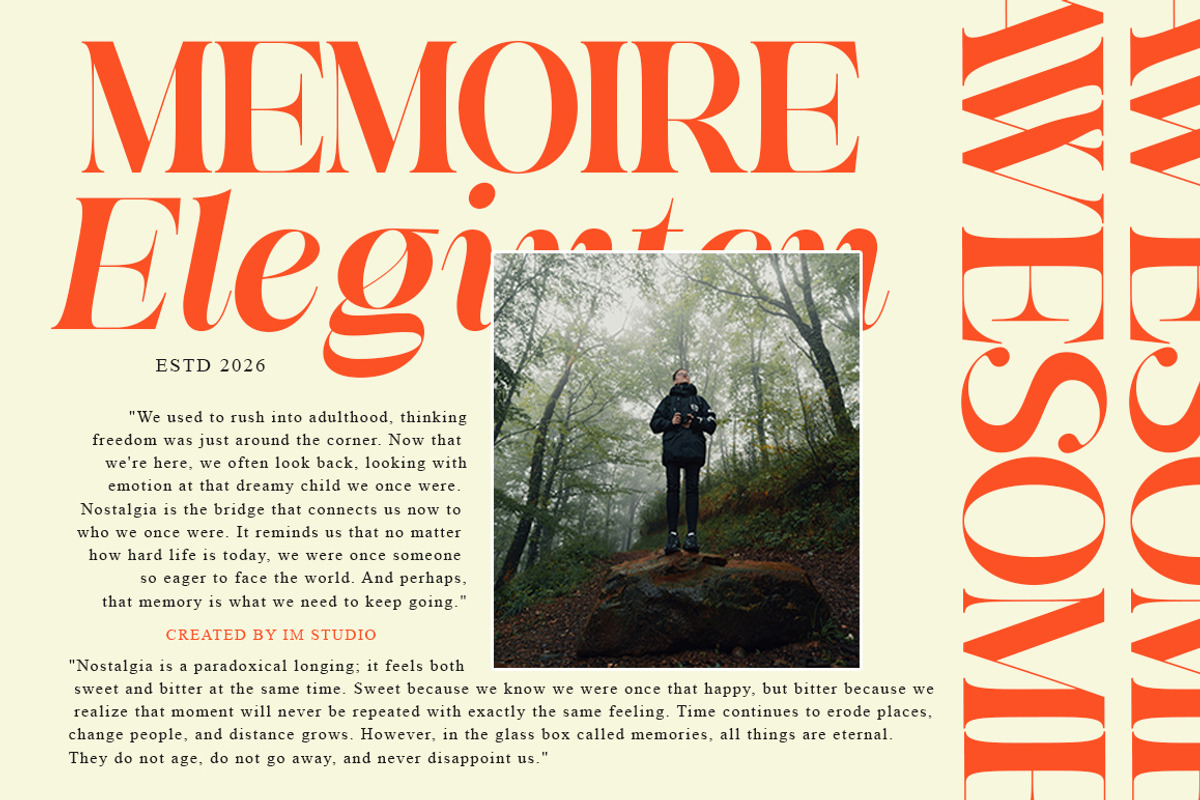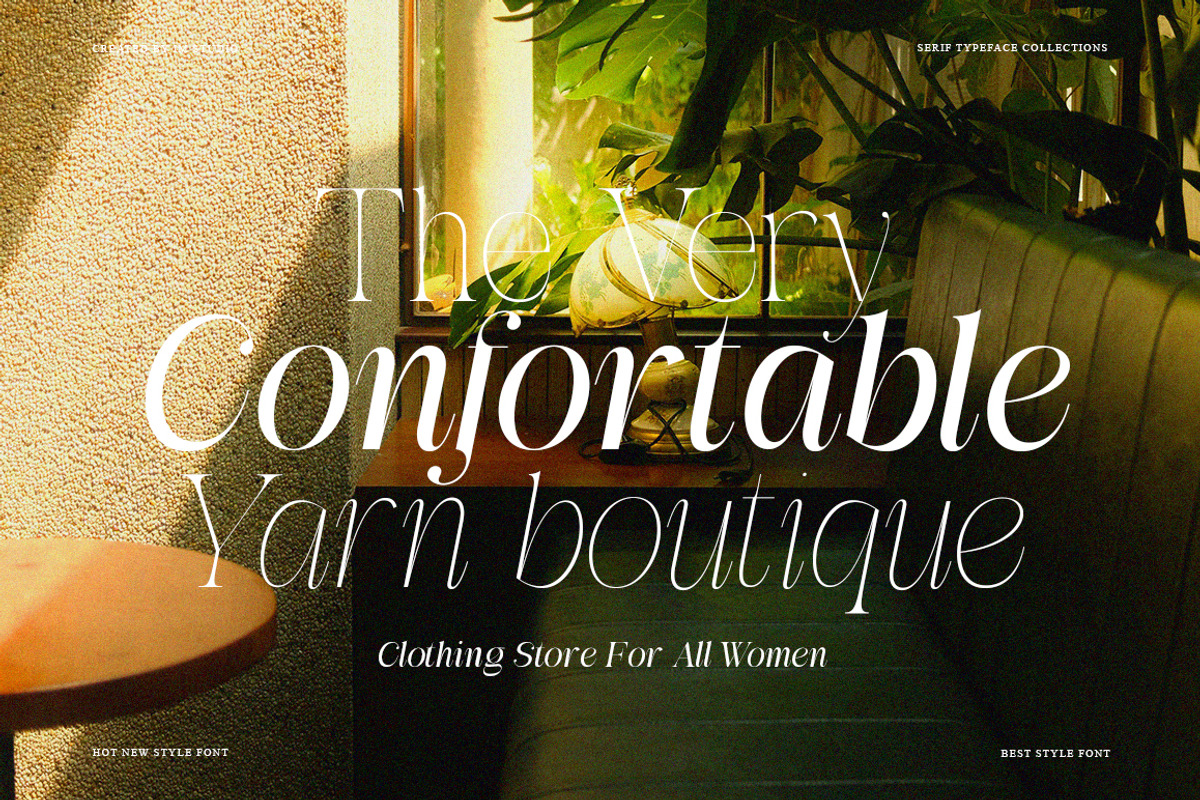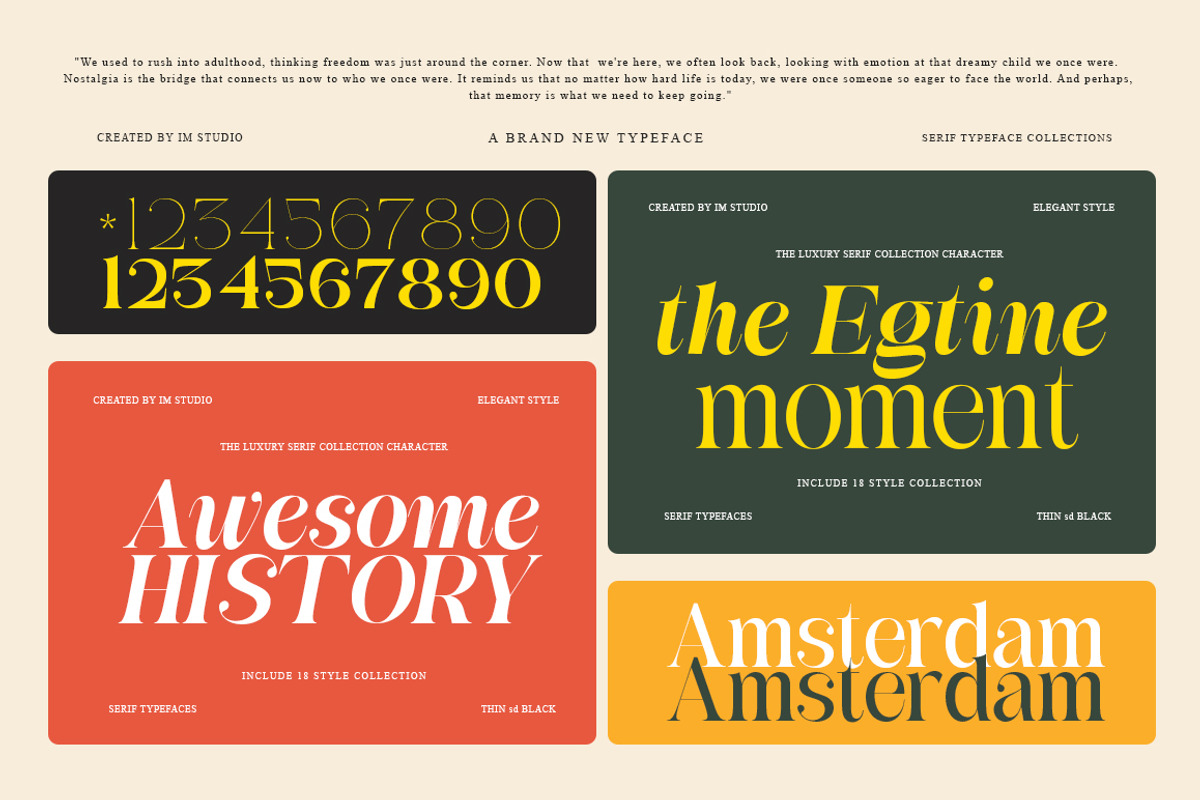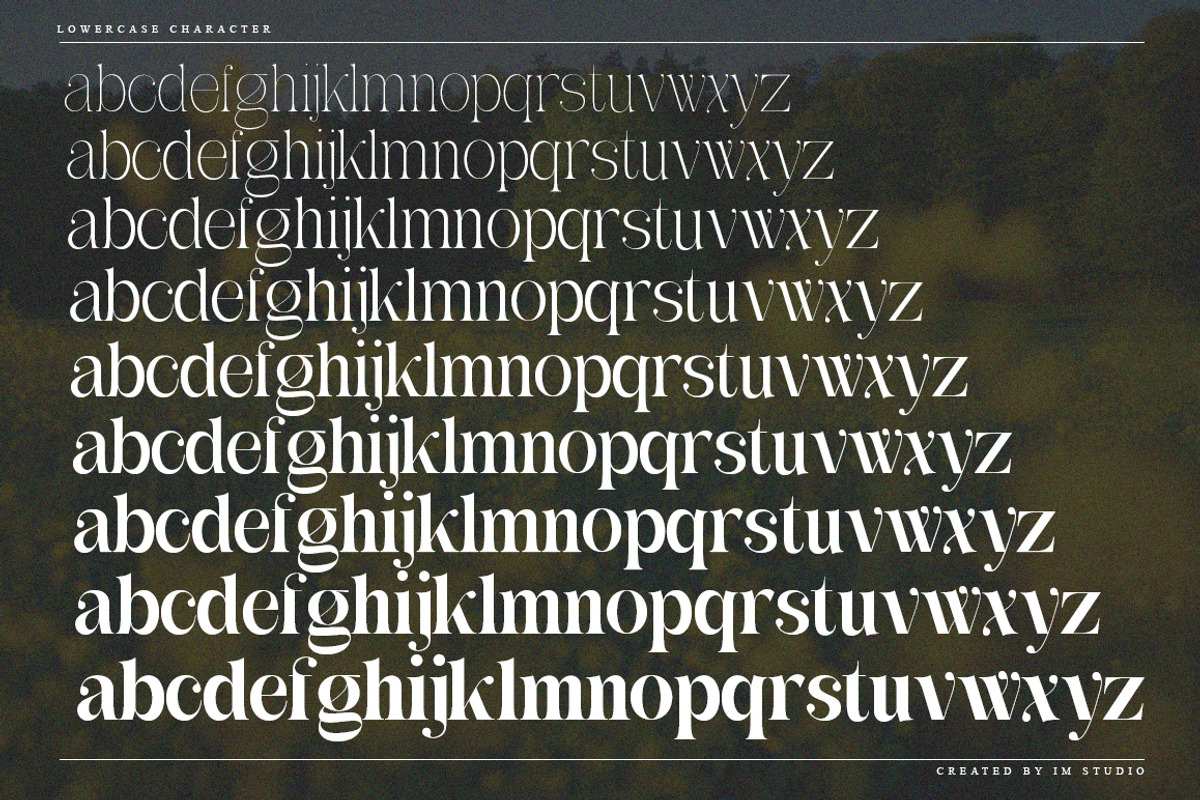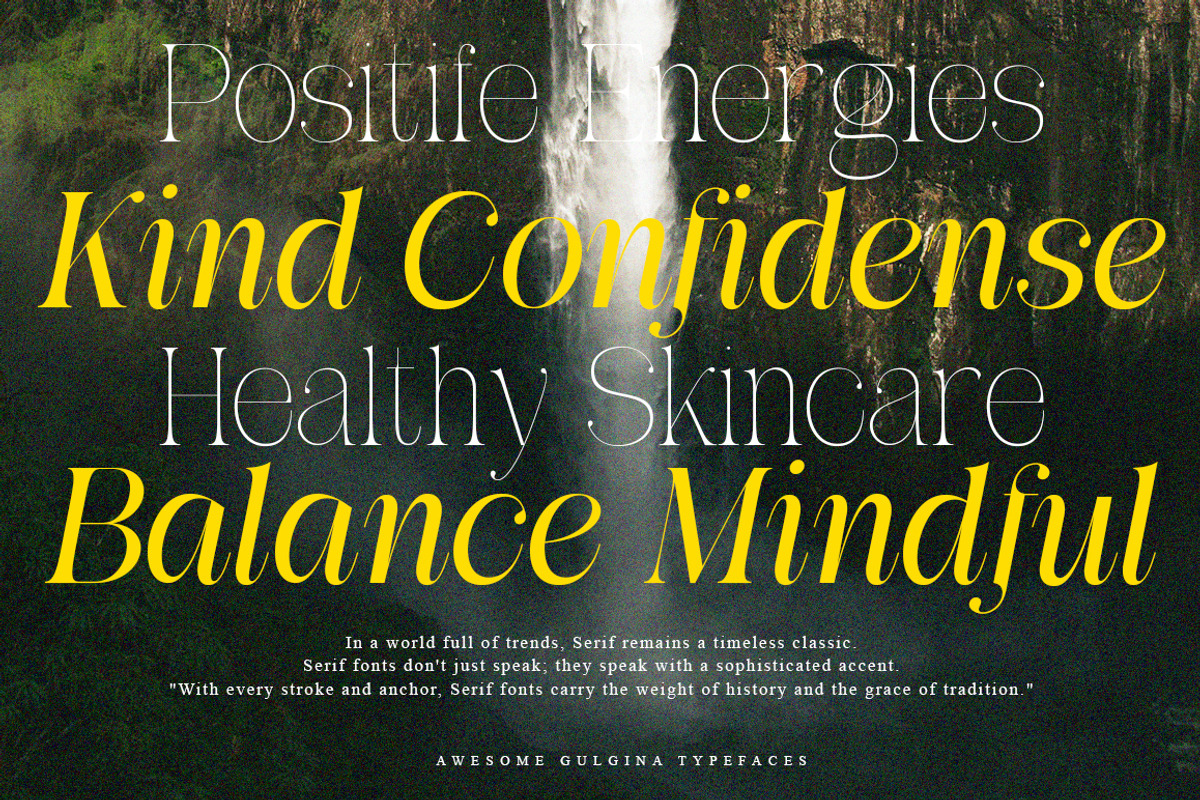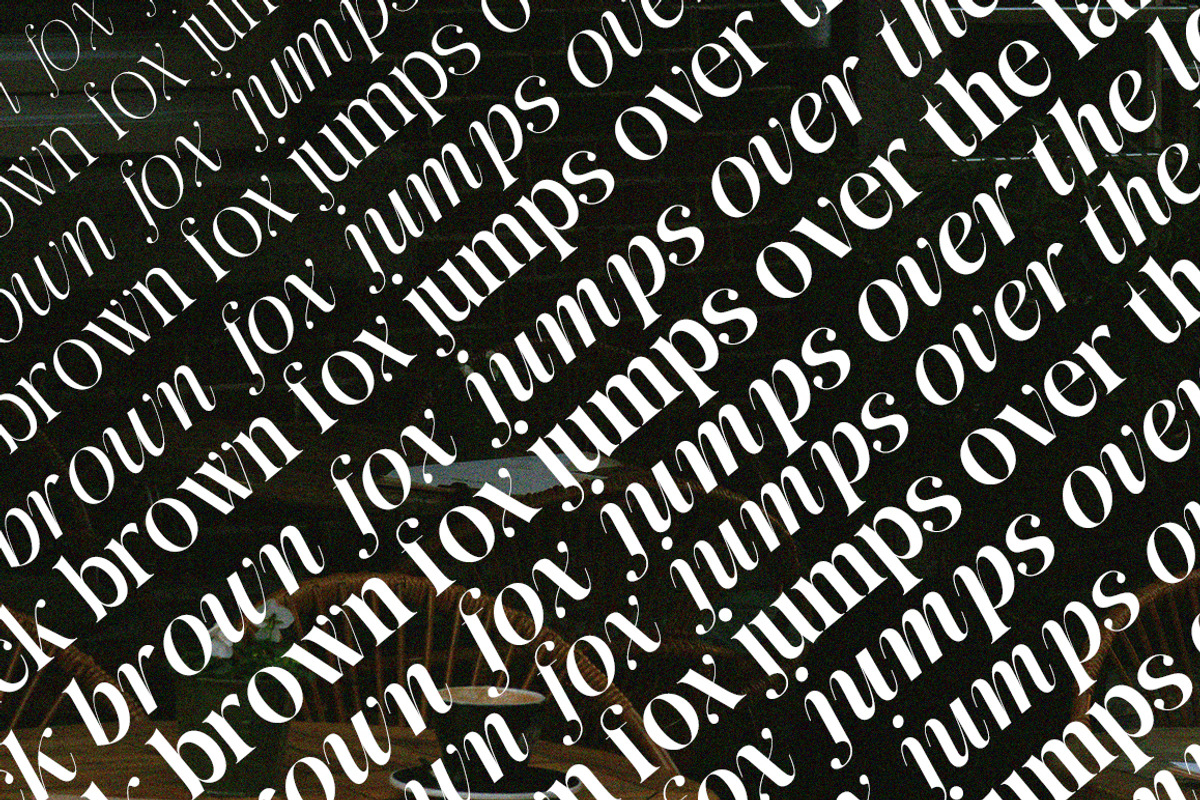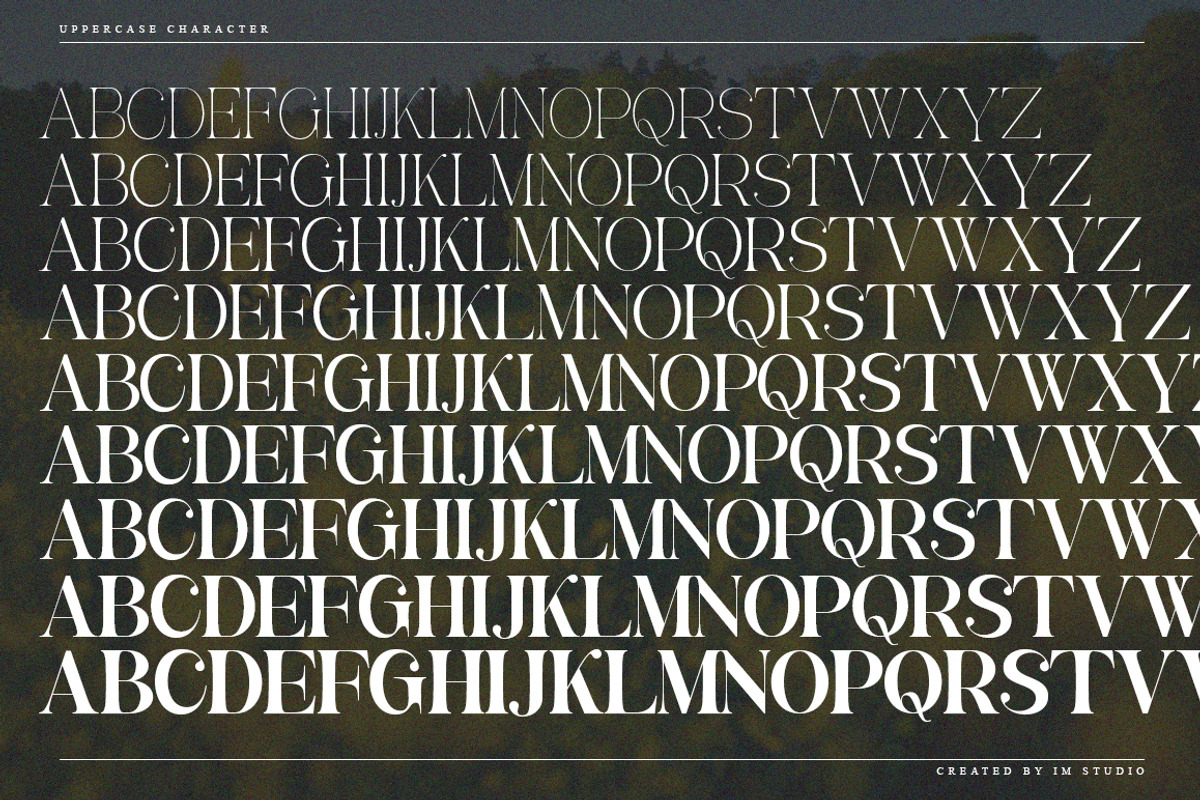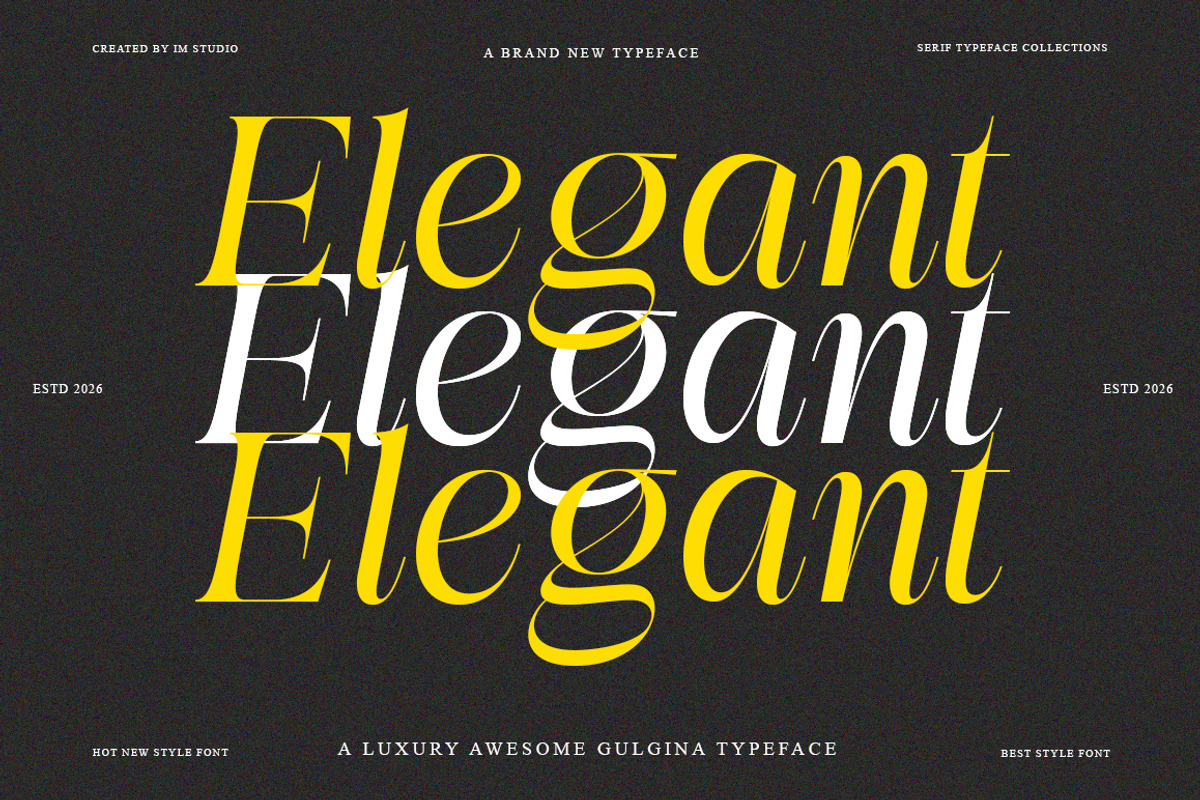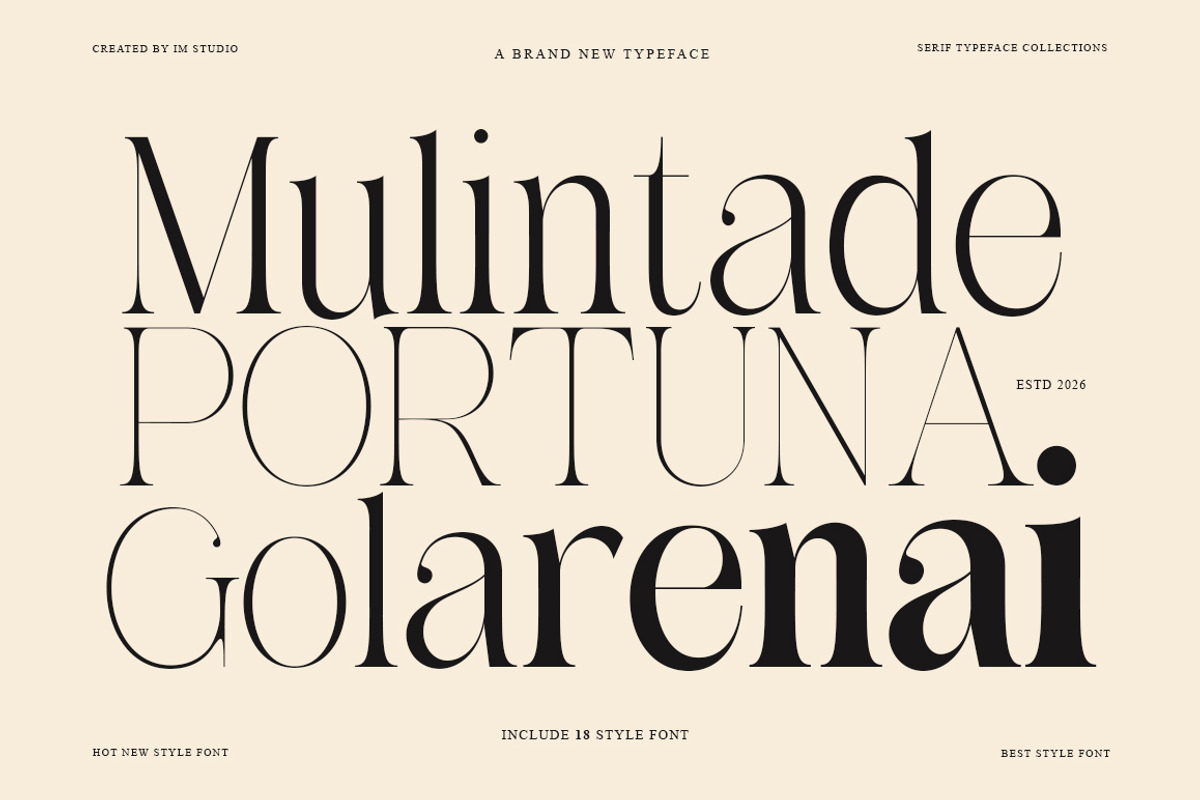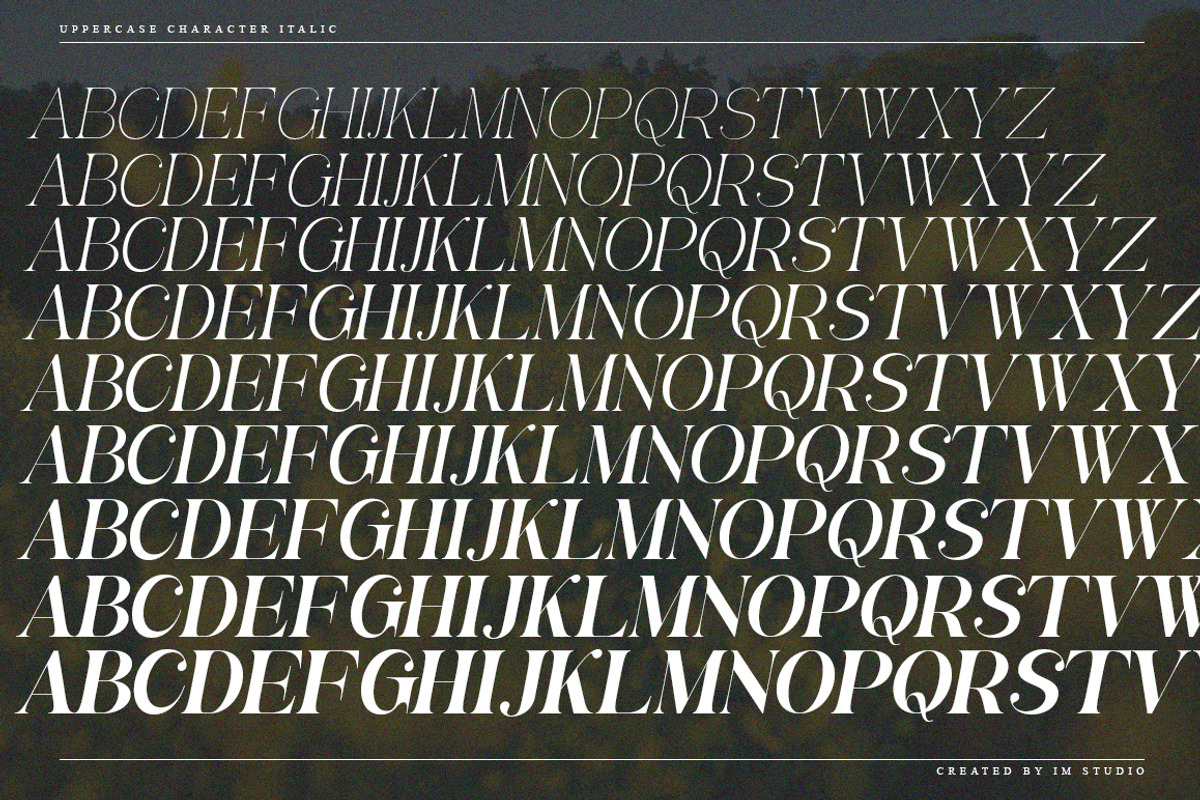
Awesome Gulgina | 18 Style Font
Introducing Awesome Gulgina: A Serif & Italic Typeface for the Modern Creative
Where precision meets elegance. Awesome Gulgina is a meticulously crafted typeface family that bridges the gap between modern clarity and timeless sophistication. Every letterform is engineered with deliberate balance—clean structure, subtle contrast, and refined curves that command attention without demanding it. Whether you're setting a headline or composing a full editorial spread, Awesome Gulgina adapts effortlessly, bringing a quiet confidence to every design it touches.
✦ The Typeface, Defined
Step into a world where typography becomes an experience. Awesome Gulgina's harmonious proportions and contemporary sensibility make it equally at home in bold brand identities and delicate, refined compositions.
Its purpose-built italic style—a true slant design, not a mechanical lean—introduces a natural sense of movement and rhythm, giving your work a dynamic yet polished character. Multiple weights, one unified vision.
✦ Key Features
- Modern Clarity
A clean, structured architecture ensures effortless readability at any size, from fine print to large-format displays—without sacrificing elegance.
- Elegant Ligatures
A curated selection of sophisticated ligatures elevates your typography, adding expressiveness and visual refinement to every word.
- Advanced OpenType Features
Full OpenType support gives designers precise typographic control—fine-tune spacing, alternate glyphs, stylistic sets, and more.
- Extensive Language Support
With support for over 90 languages, Awesome Gulgina is built for the world stage—ideal for brands and creatives with a global voice.
- True Slant Italic Design
Unlike a simple oblique, the italic style is purpose-built from the ground up—flowing naturally alongside the upright styles for a seamless, organic feel.
✦ Made For
Use CaseWhy It WorksEditorial & PublishingExceptional readability for magazines, books, and long-form print.Branding & IdentityClean, modern forms that build memorable, lasting impressions.Web & Digital DesignOptimized for clarity and legibility across all screen sizes.Packaging & PrintAdds a premium, contemporary touch to physical materials.Invitations & StationeryElegant and versatile—equally suitable for formal and creative occasions.
18 Total Styles — A complete typographic system ready for any creative challenge.